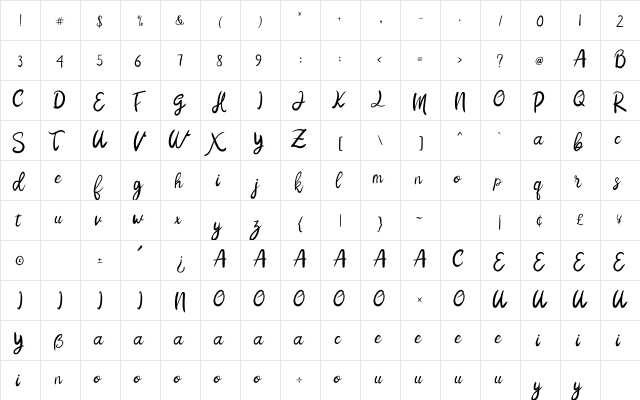
Nila Ambar Regular
| Foundry | F. Aristaputra |
| Designer | F. Aristaputra |
Design Context for Nila Ambar Typeface
Nila Ambar is a composed and adaptable typeface that performs quietly and consistently across a wide range of design contexts.